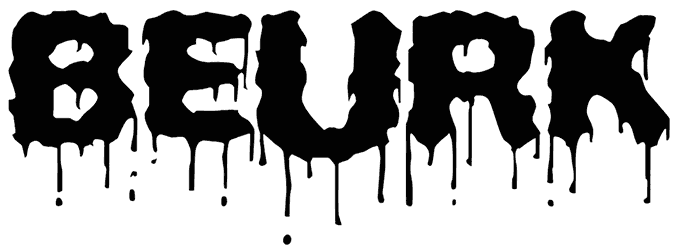
Beurk Font
Boost the touch of blood and funk in your design with Beurk. This dripping font with bold and wavy letterform would beget an eldritch face to your words. As a horror font, Beurk is a cool pickup to decorate lots of projects such as dread titles, movie posters, Halloween designs, and many more others the same even without lowercase, numerals, or punctuation.